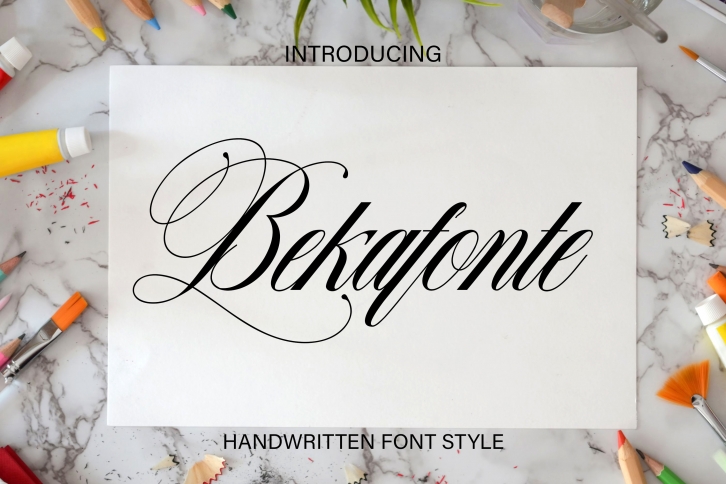
Bekafonte is a beautiful script font.
You can use it for various projects, such as blog posts, logos, branding, ads, invitations, greeting cards, planners, photo albums, decorations, and much more. This font is PUA encoded which means you can access all glyphs and swashes with ease!